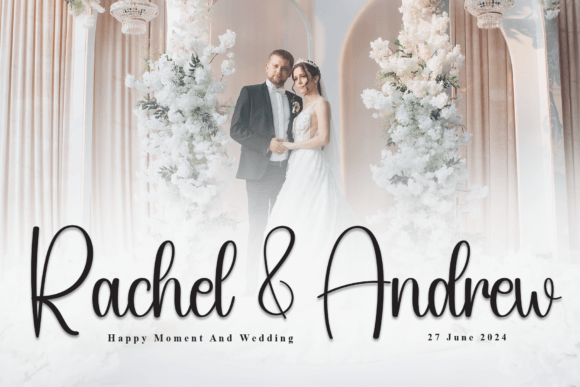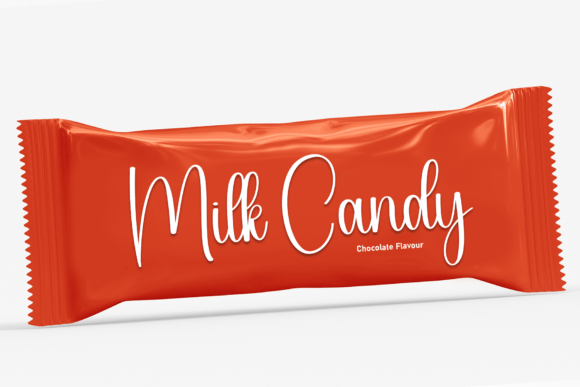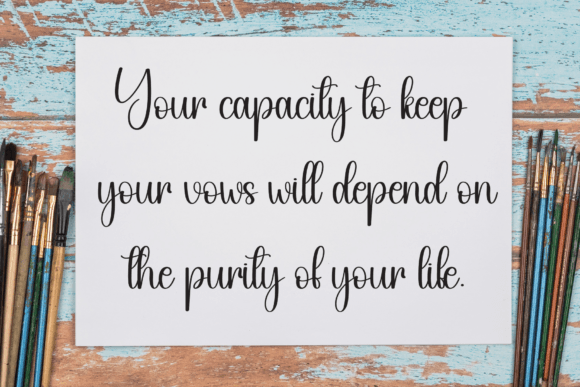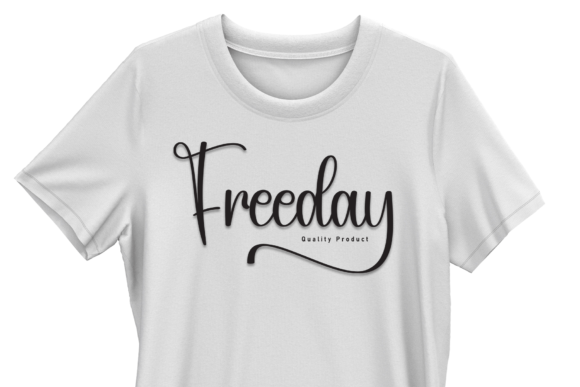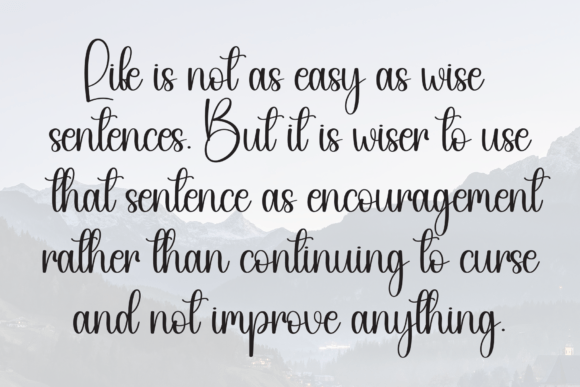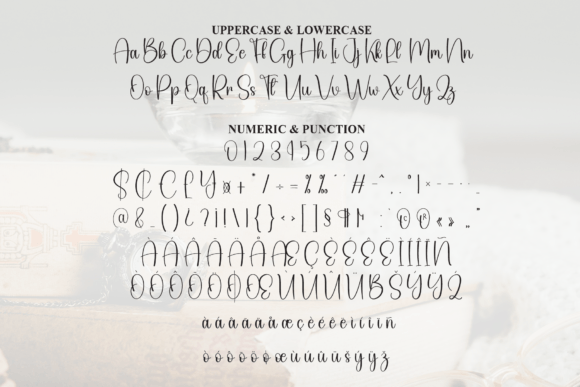
Aromatic Font: Elevate Your Designs with Elegance and Charm
In the world of typography, fonts play a crucial role in conveying the tone and personality of a design. For designers and crafters looking to add a touch of sophistication and warmth to their work, the Aromatic font is an excellent choice. This stylish handwritten script font is designed to exude elegance and charm, making it perfect for a variety of creative projects.
The Characteristics of Aromatic Font
Aromatic font is characterized by its fluid strokes and natural flow, which create a captivating and sophisticated look. The font’s handwritten script style gives it a personal and organic feel, making it ideal for designs that require a touch of warmth and personality. The elegant and charming appearance of Aromatic font makes it suitable for a range of applications, from invitations and branding to social media graphics and more.
Uses of Aromatic Font
Aromatic font is a versatile typeface that can be used in various design projects. Here are some of the ways you can use this beautiful font:
- Invitations: Add a touch of elegance to your invitations, whether it’s for a wedding, birthday party, or baby shower. Aromatic font’s sophisticated look makes it perfect for formal and informal events.
- Branding: Use Aromatic font to create a unique and memorable brand identity. The font’s charming and elegant appearance makes it ideal for logos, packaging, and marketing materials.
- Social Media Graphics: Elevate your social media graphics with Aromatic font. Create eye-catching posts, stories, and ads that showcase your brand’s personality and style.
- Stationery: Add a personal touch to your stationery, such as notebooks, journals, and greeting cards. Aromatic font’s handwritten script style makes it perfect for creating a sense of warmth and connection.
Benefits of Using Aromatic Font
Aromatic font offers several benefits for designers and crafters. Here are some of the advantages of using this beautiful font:
- Elegance and Charm: Aromatic font’s sophisticated look adds a touch of elegance and charm to any design.
- Versatility: The font’s versatility makes it suitable for a range of applications, from formal to informal designs.
- Warmth and Personality: Aromatic font’s handwritten script style gives it a personal and organic feel, making it perfect for designs that require a touch of warmth and personality.
- Easy to Read: The font’s clear and legible design makes it easy to read, even at small sizes.
Tips for Using Aromatic Font
Here are some tips for using Aromatic font effectively in your designs:
- Pair with Other Fonts: Experiment with pairing Aromatic font with other fonts to create a unique and visually appealing combination.
- Use in Moderation: Use Aromatic font in moderation to avoid overwhelming the design. Balance the font with other design elements to create a harmonious look.
- Adjust Font Size: Adjust the font size to create visual hierarchy and emphasize important information.
- Experiment with Colors: Experiment with different colors to find the perfect match for your design. Aromatic font looks great in a range of colors, from bold and bright to soft and pastel.
Aromatic font is a beautiful and elegant handwritten script font that can elevate your designs with its charm and sophistication. Whether you’re a designer or crafter, this font is perfect for adding a personal touch to your work. With its versatility, warmth, and personality, Aromatic font is an excellent choice for a range of creative projects. So why not give it a try and see how it can transform your designs?